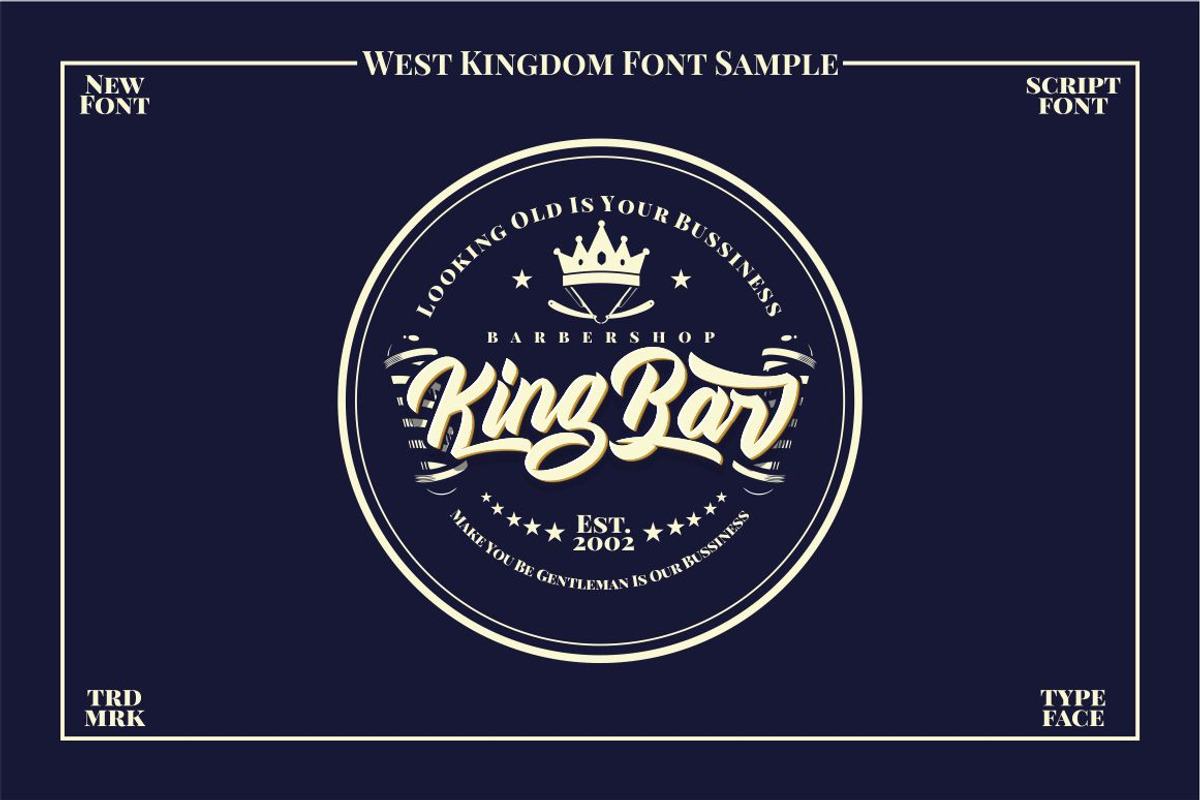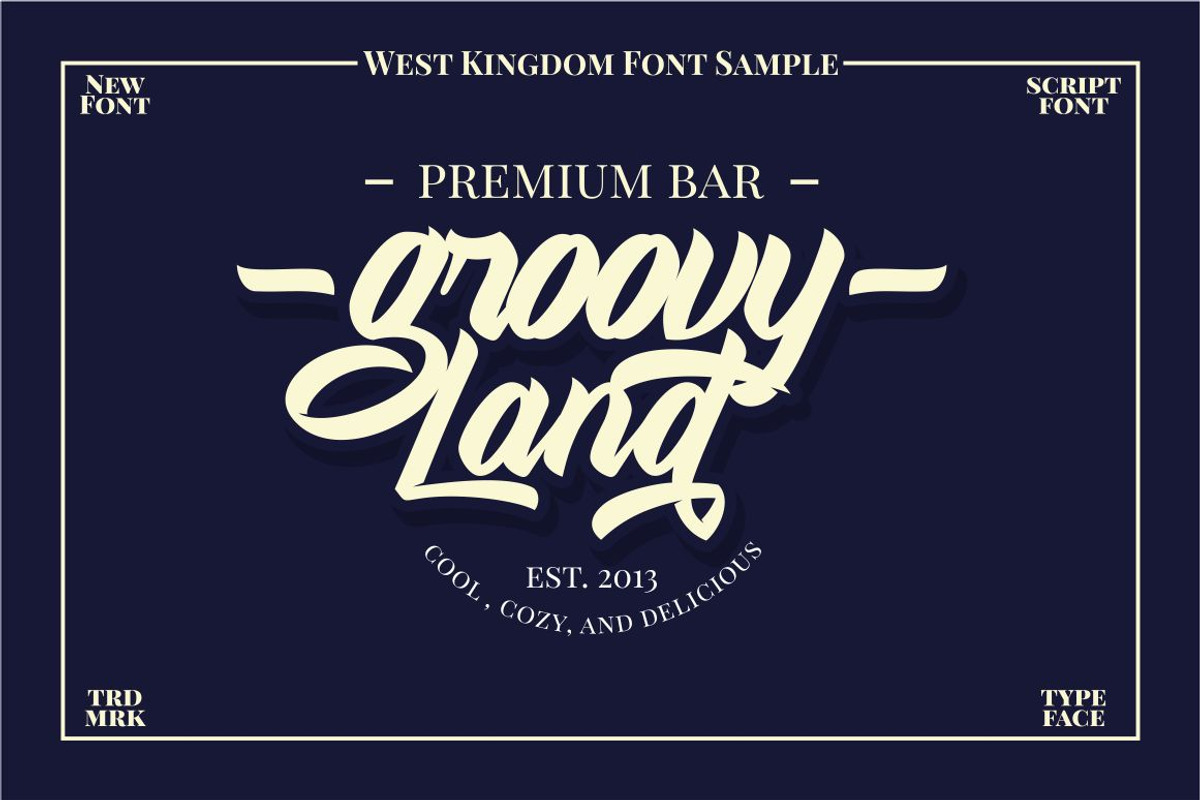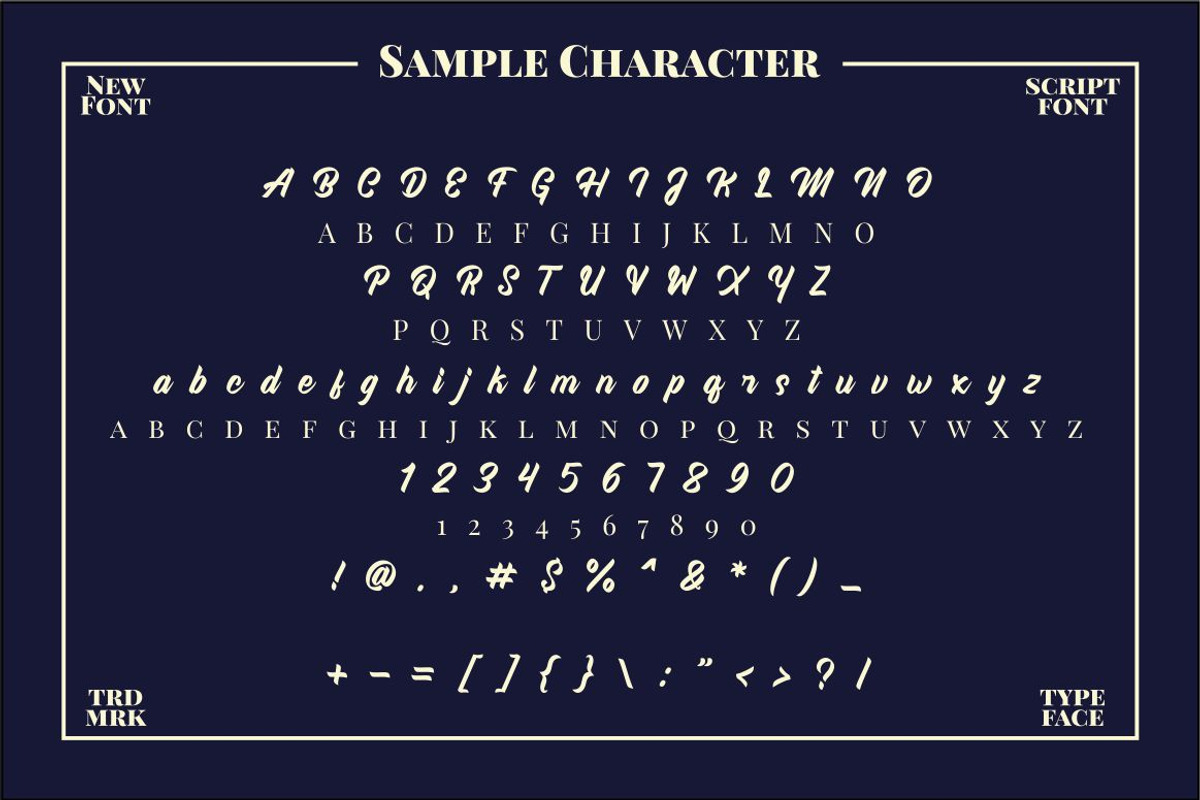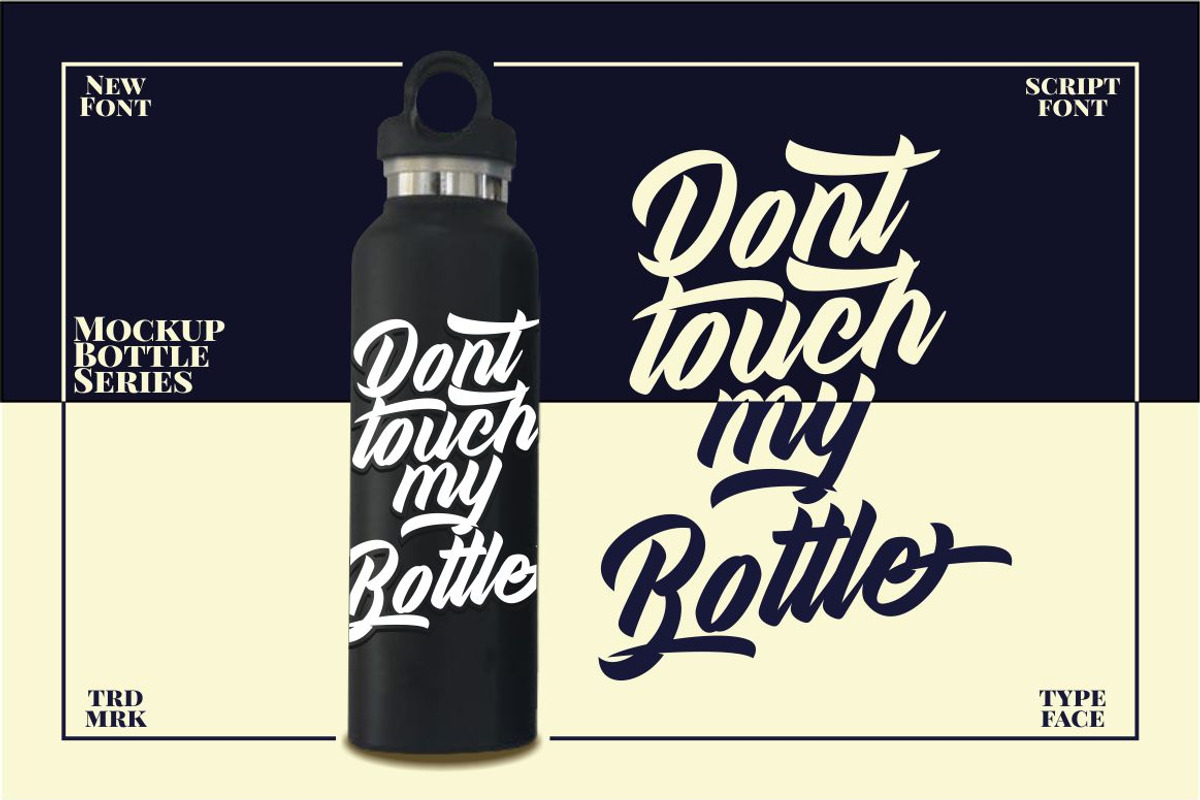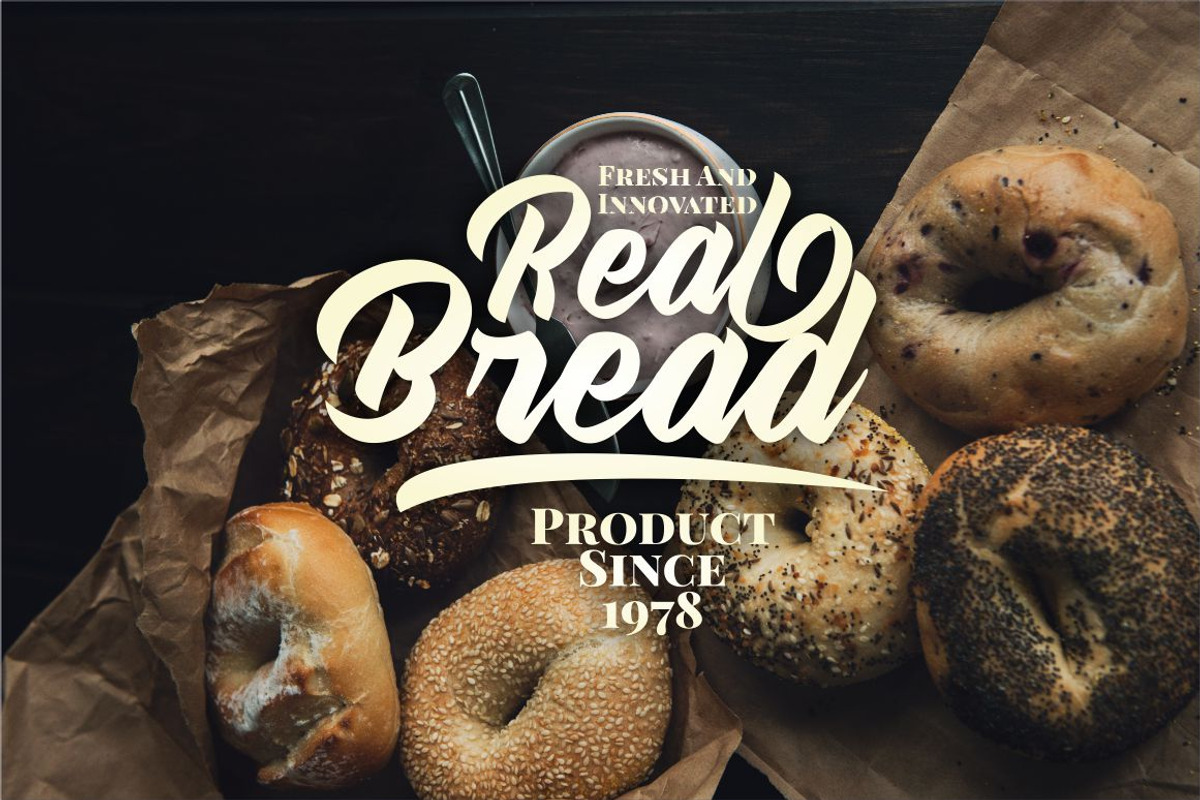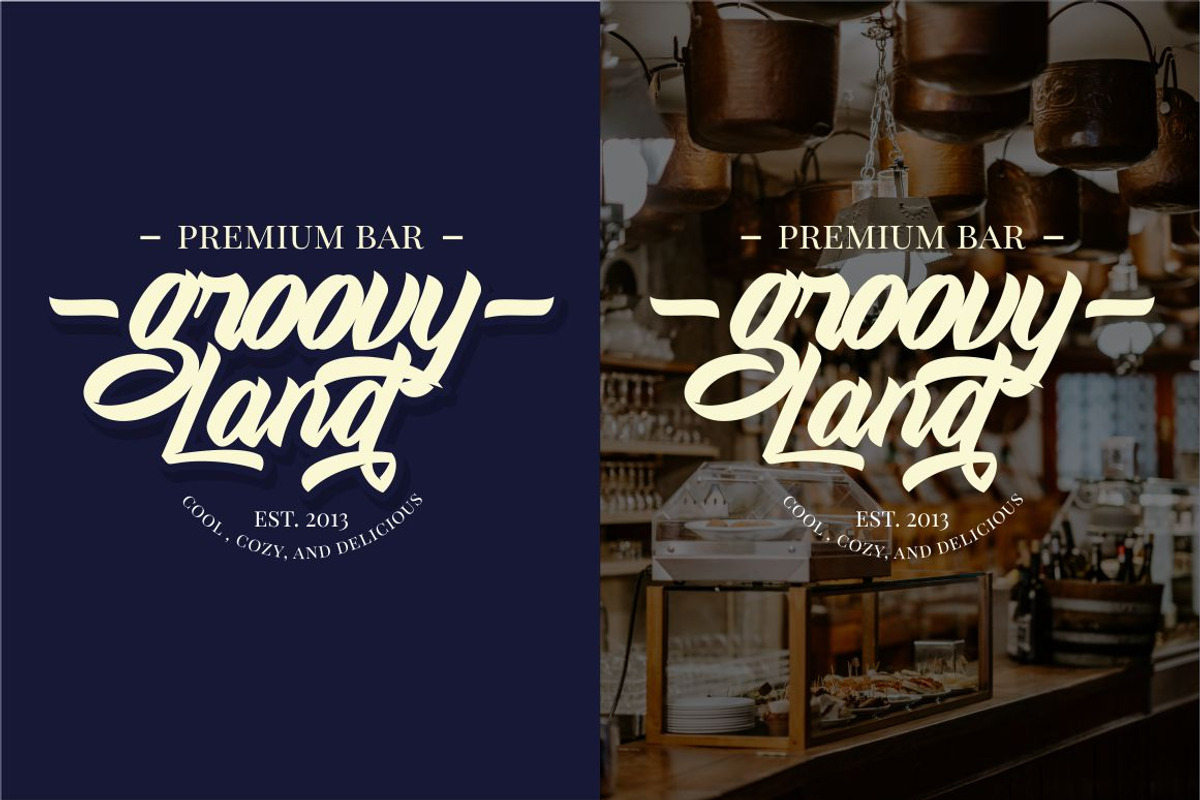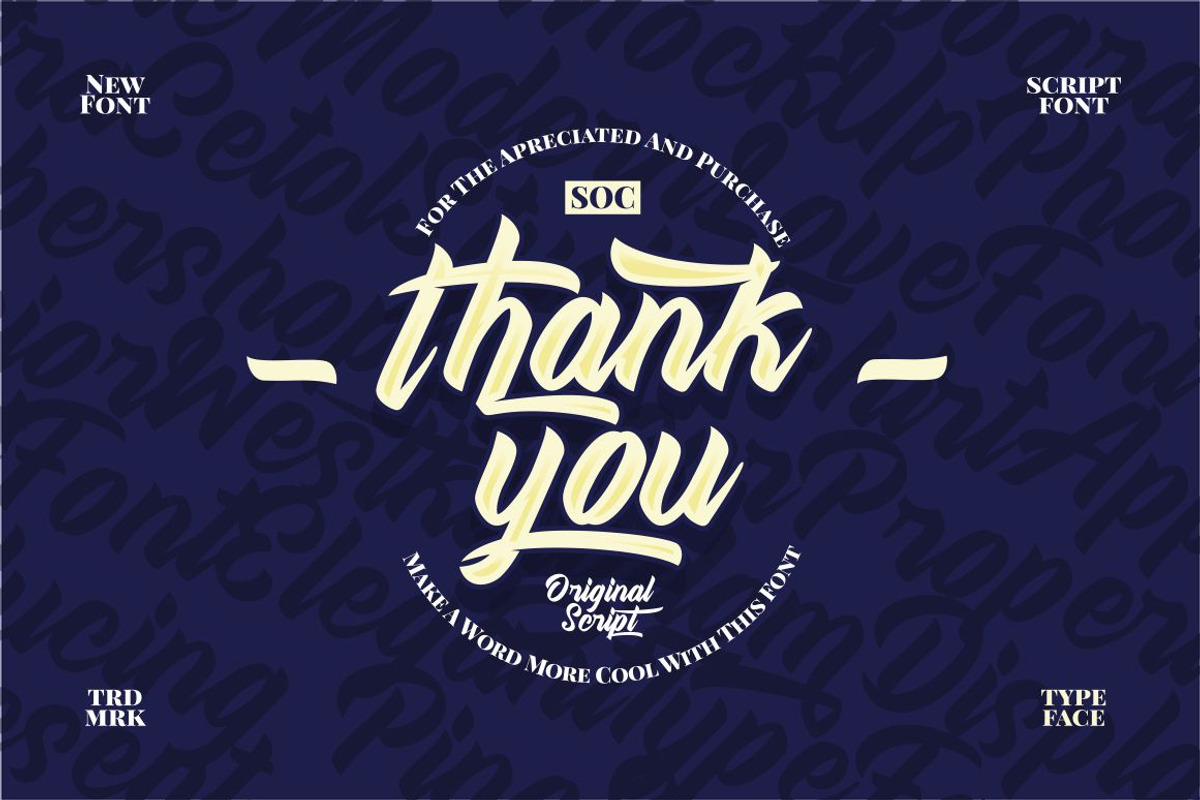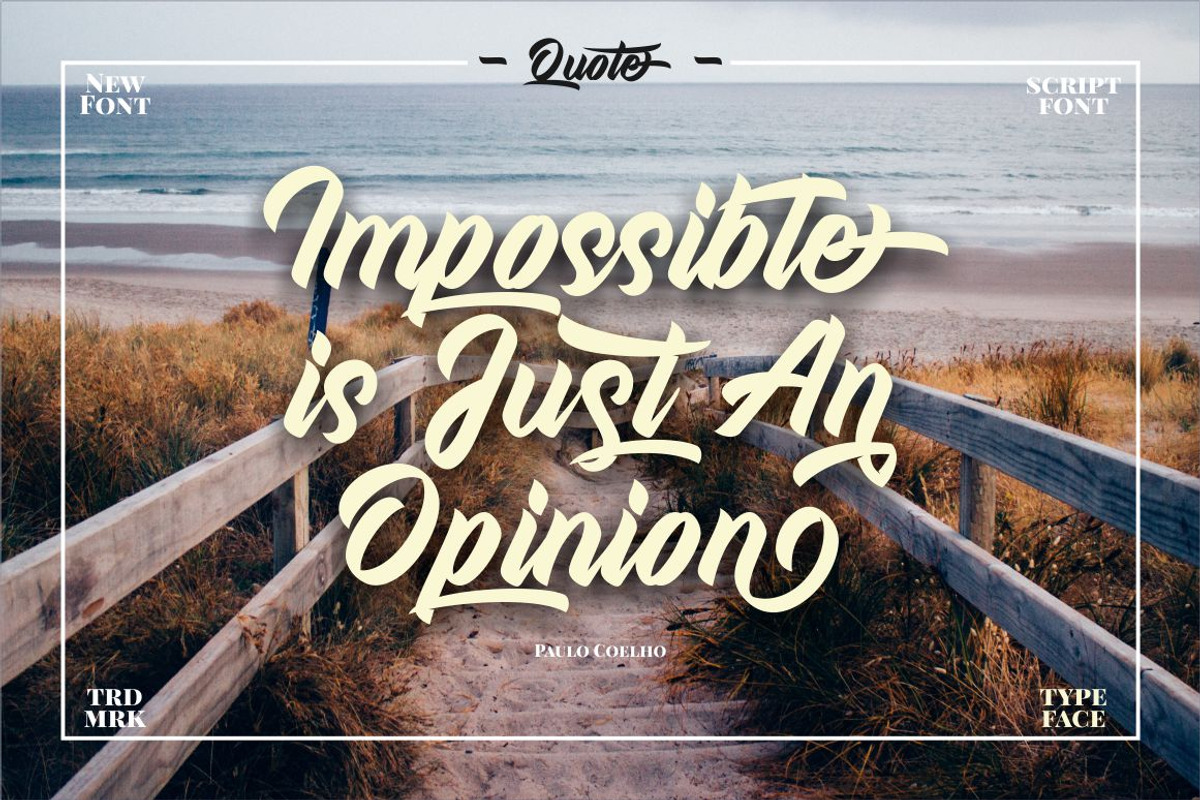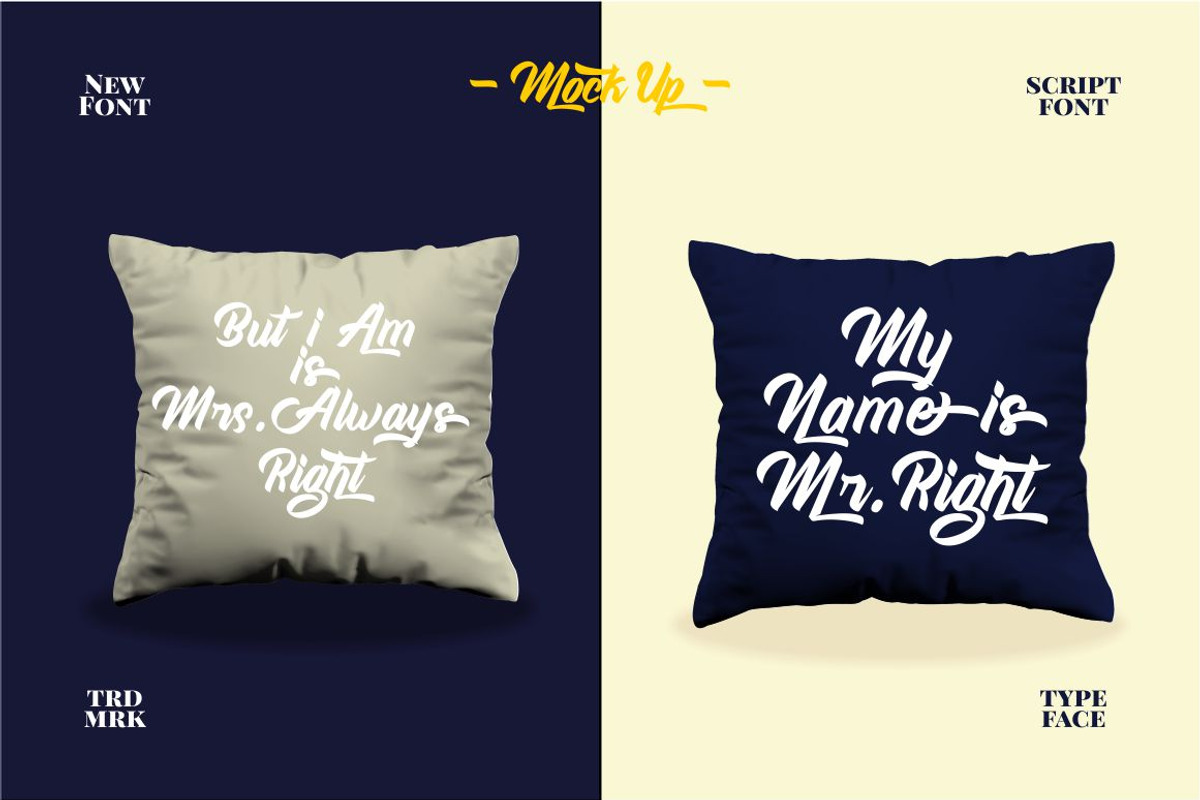
West Kingdom
Introducing ... WEST KINGDOM
WEST KINGDOM is a modern script that inspired by streetwear and combination hand lettering style.
Ideal for logos, badge, label, apparel, club, event, handwritten quotes, product packaging, header, poster, merchandise, social media & greeting cards.
WEST KINGDOM has many opentype features like ligature, alternate, swash and also support multi language.
Comes with feature :
- Alternate , Ligature & Swash
- Number, Punctuation And Symbols
- Multilanguage Support.